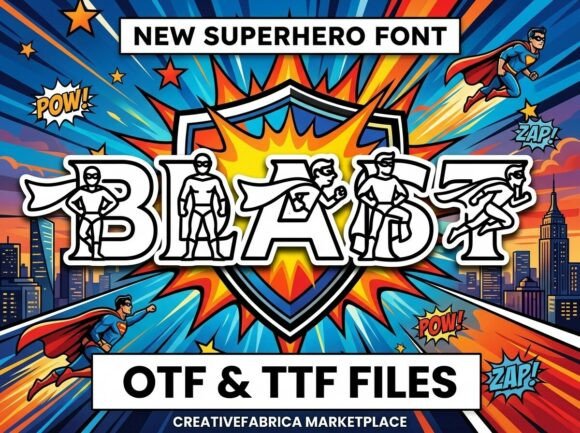
Unleash Your Inner Hero with Blast Font
Have you ever been working on a project, pouring your heart and soul into it, only to get stuck on one thing: finding the perfect font? I remember a recent project where I was tasked with creating a bold, eye-catching title for a comic book series. The client wanted something that screamed “heroic” and “high-speed,” but I was struggling to find a font that fit the bill. That’s when I stumbled upon Blast, a high-octane display typeface that captured the exact vibe I was looking for.
What Makes Blast Font So Special?
Blast font is a game-changer for anyone looking to add a touch of heroism to their design. Its massive, slab-serif letterforms are uniquely characterized by rhythmic, hand-drawn “superhero” silhouettes integrated directly into the glyphs. This distinctive feature bridges the gap between classic golden-age comics and modern cinematic branding.
Key Features of Blast Font
- ✨ Massive, slab-serif letterforms for maximum impact
- ✅ Hand-drawn “superhero” silhouettes integrated into the glyphs
- ⚡️ Heavy structural weight for a bold, explosive personality
An Honest Review of Blast Font
What I Love About Blast Font
- ✨ The unique blend of classic and modern elements makes it perfect for a wide range of projects
- ✅ The font’s heavy structural weight gives it a bold, eye-catching presence
- ⚡️ The hand-drawn silhouettes add a touch of personality and whimsy
While Blast font is an amazing tool, it’s not without its quirks. For example, ⚠️ some of the glyphs can be a bit tricky to work with, especially for beginners. Additionally, 🤔 the font’s bold personality may not be suitable for every project, so it’s essential to consider the tone and style of your design before using it.
The Backstory Behind Blast Font
Blast font was designed with one goal in mind: to create a typeface that captured the essence of heroism and high-speed action. The designer, inspired by classic comic books and modern cinematic branding, set out to create a font that would be both bold and eye-catching. The result is a font that’s perfect for independent comic book titles, children’s action toy packaging, e-sports team identities, and high-impact social media headers.
| Font Name | Blast Font |
| Author | grifvixcolor |
| What is Blast font best used for? | Blast font is perfect for projects that require a bold, eye-catching presence, such as independent comic book titles, children’s action toy packaging, e-sports team identities, and high-impact social media headers. |
| Is Blast font suitable for body text? | No, Blast font is a display typeface and is best used for headlines and titles. Its bold personality and heavy structural weight make it less suitable for body text. |
| Is Blast font available in different weights or styles? | Currently, Blast font is available in a single weight, but the designer may release additional weights or styles in the future. |